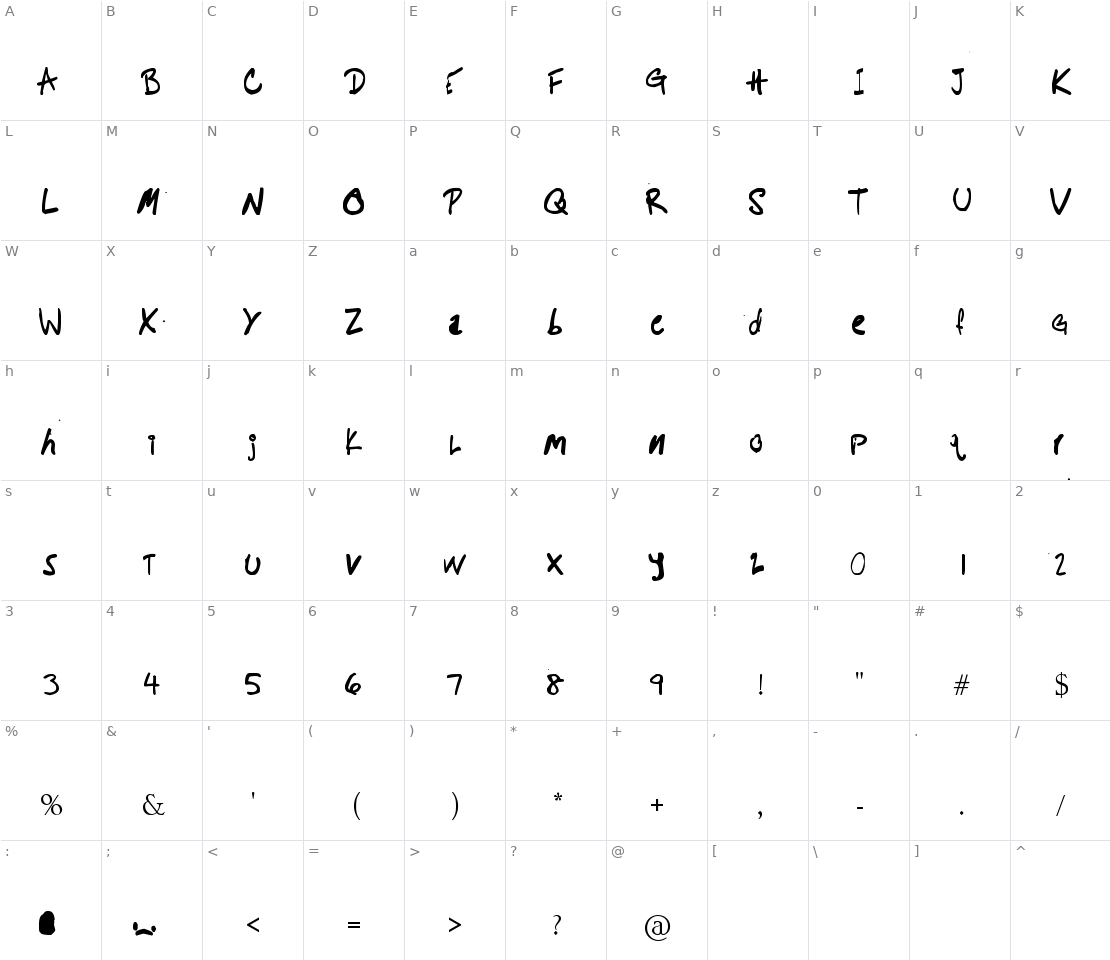
Potato Farmer
by Gillett Langston
Potato Farmer is a chunky, rough-edged handwritten face from Gillett Langston that looks like someone grabbed a thick brush marker and just went for it. The bold strokes have a loose, playful energy with enough grit and texture to feel genuinely hand-done rather than digitally smoothed out. Best at headline sizes for posters, packaging, or casual branding where you want something that feels approachable and a little messy.